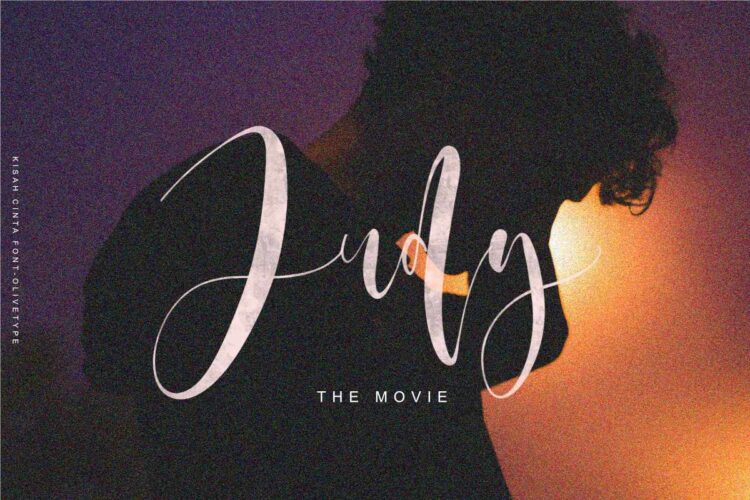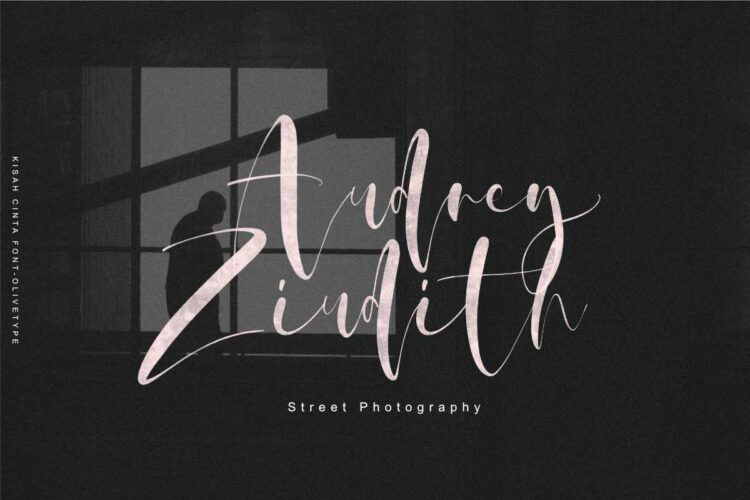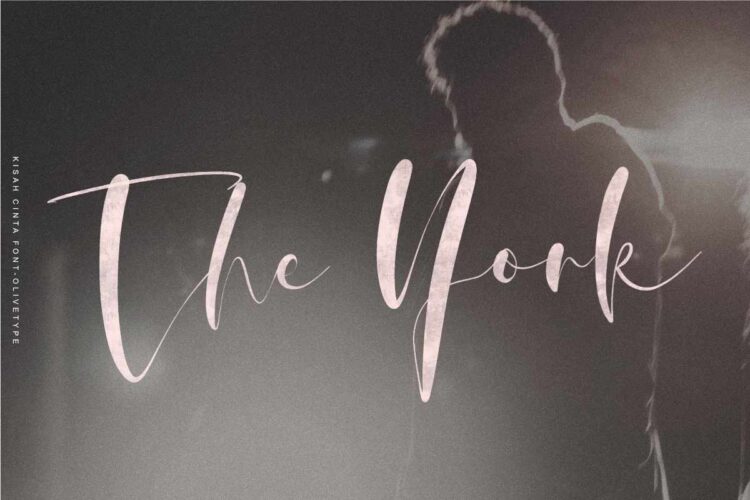
Introducing Kisah Cinta – a brush script font that exudes elegance and versatility like a classic beauty. Its handcrafted nature gives each character a sense of individuality in unity that captivates the viewer’s attention.
Kisah Cinta is available in two distinctive options: the texturized SVG version for a unique visual appeal, and the solid regular font version for classic sophistication.